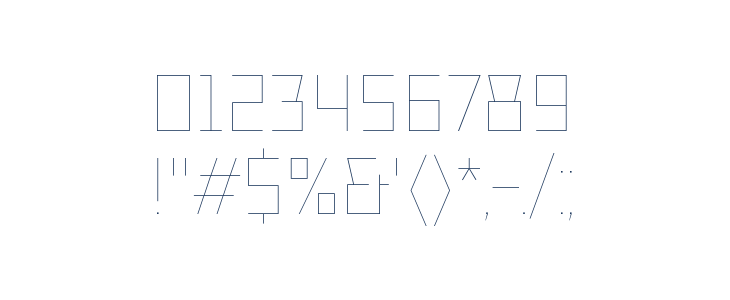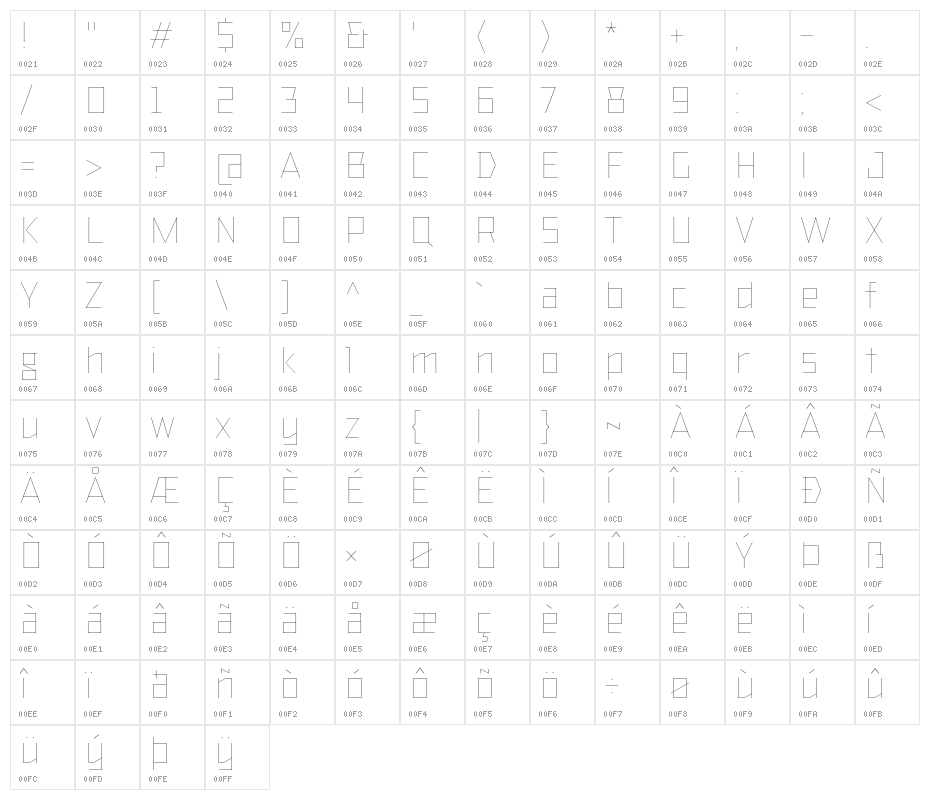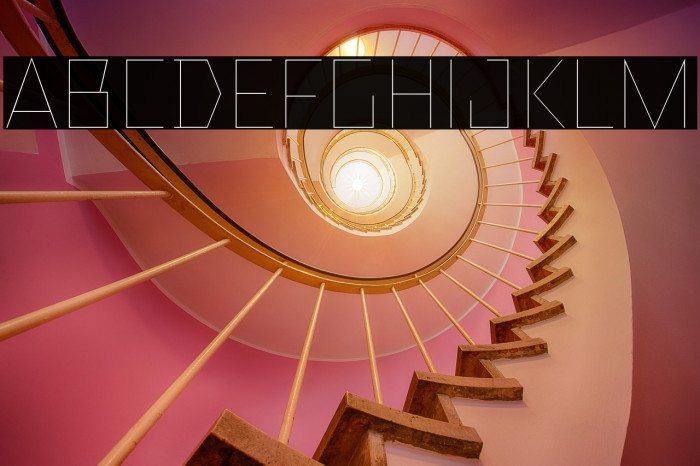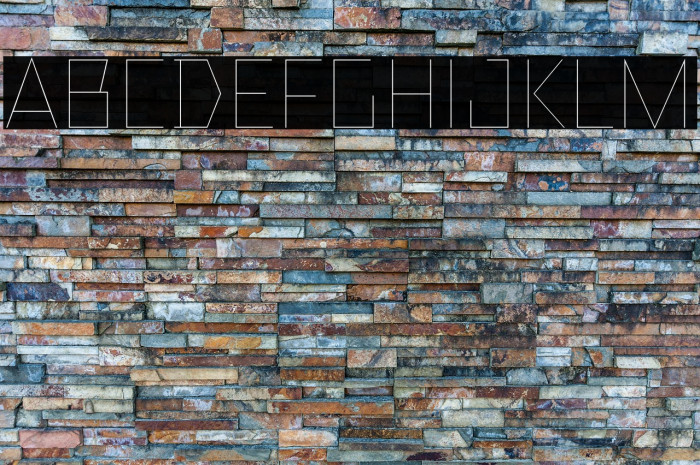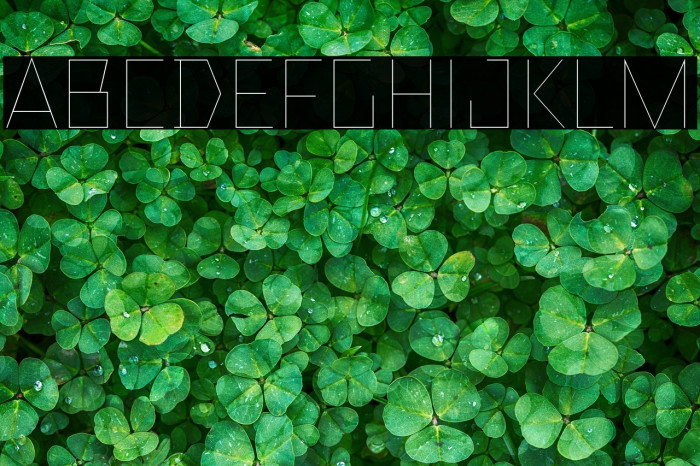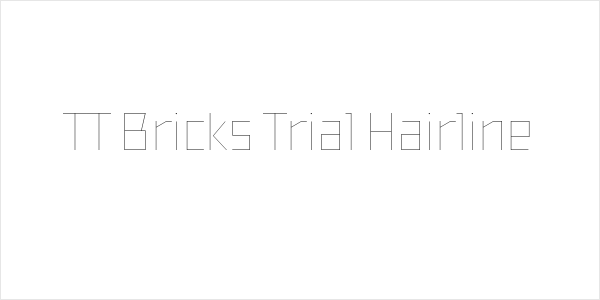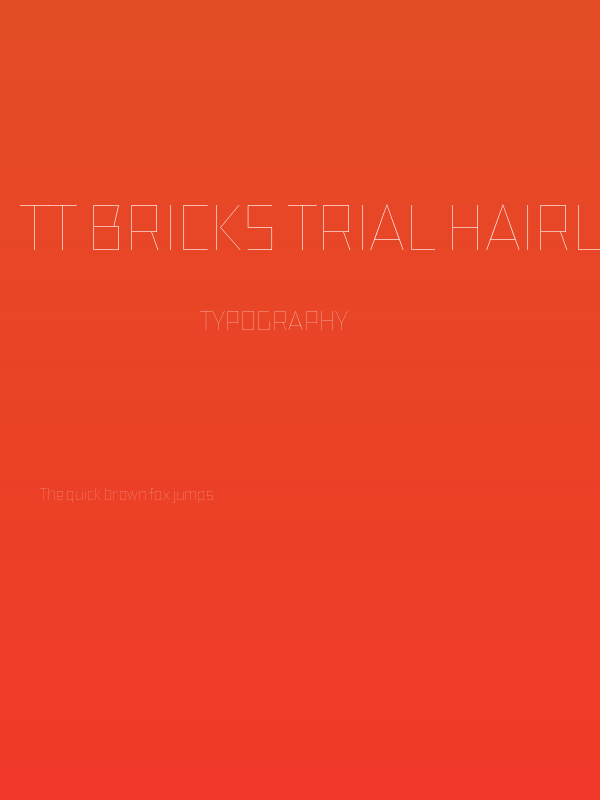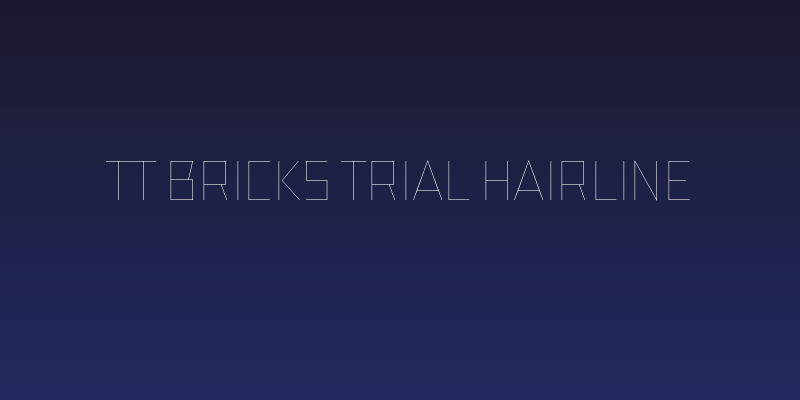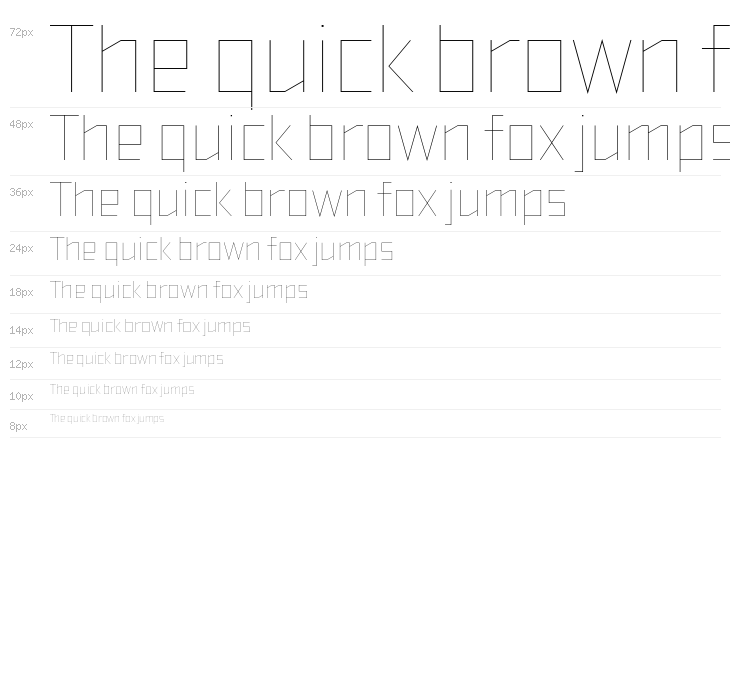
TT Bricks Trial Hairline Font
TT Bricks Trial Hairline Description
This font features a geometric and minimalist design with a hairline weight, characterized by thin, precise lines and angular shapes. The uppercase and lowercase letters maintain a consistent structure, emphasizing straight lines and sharp angles, which give it a modern and technical appearance. The numerals and special characters follow the same design principles, ensuring uniformity across all glyphs. The overall aesthetic is clean and futuristic, making it suitable for contemporary design projects.
| Use Case | Logos, Headlines, Digital Interfaces |
| Proposed Projects | Ideal for tech branding, modern art posters, architectural designs, and digital interfaces. |